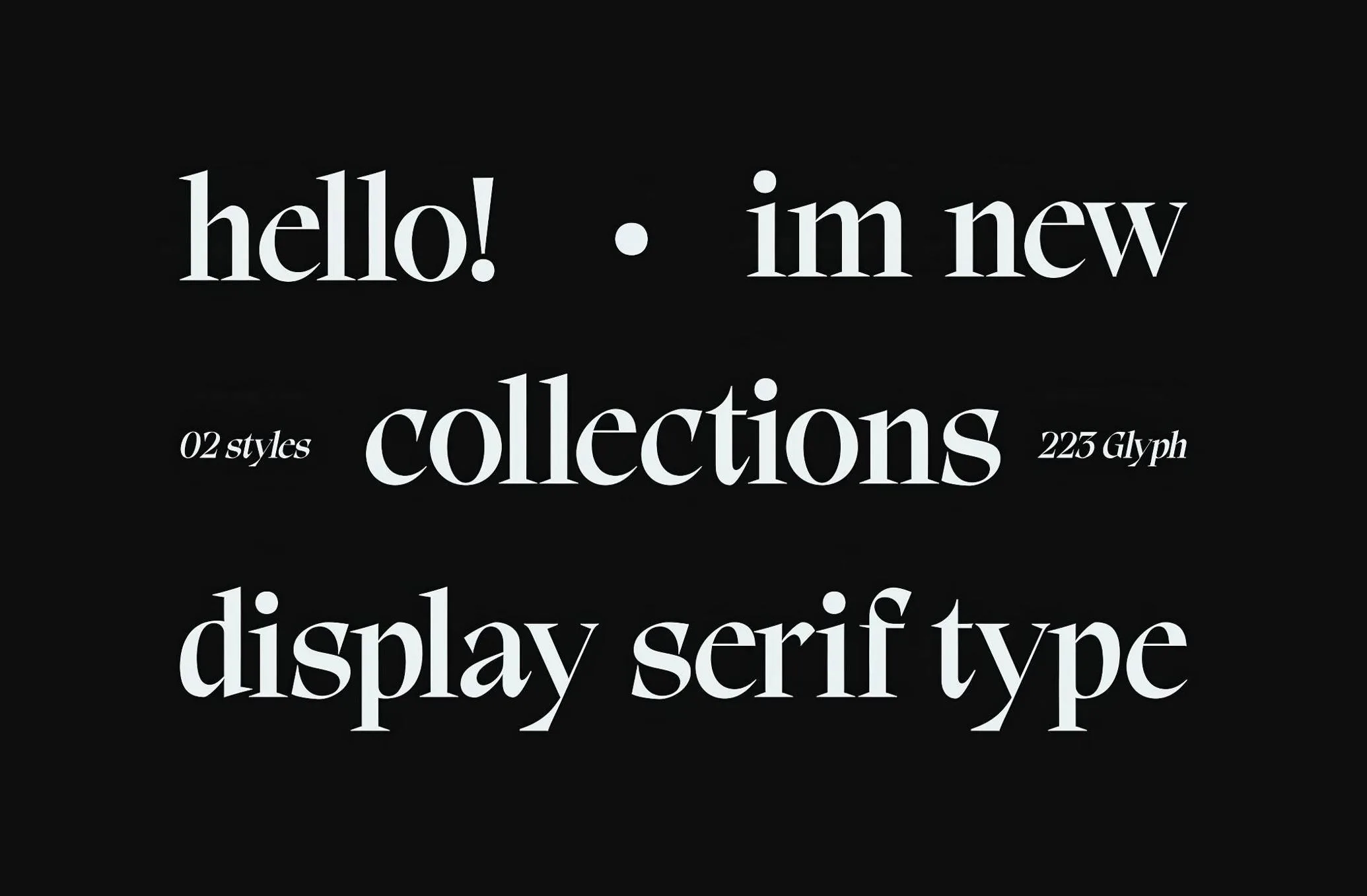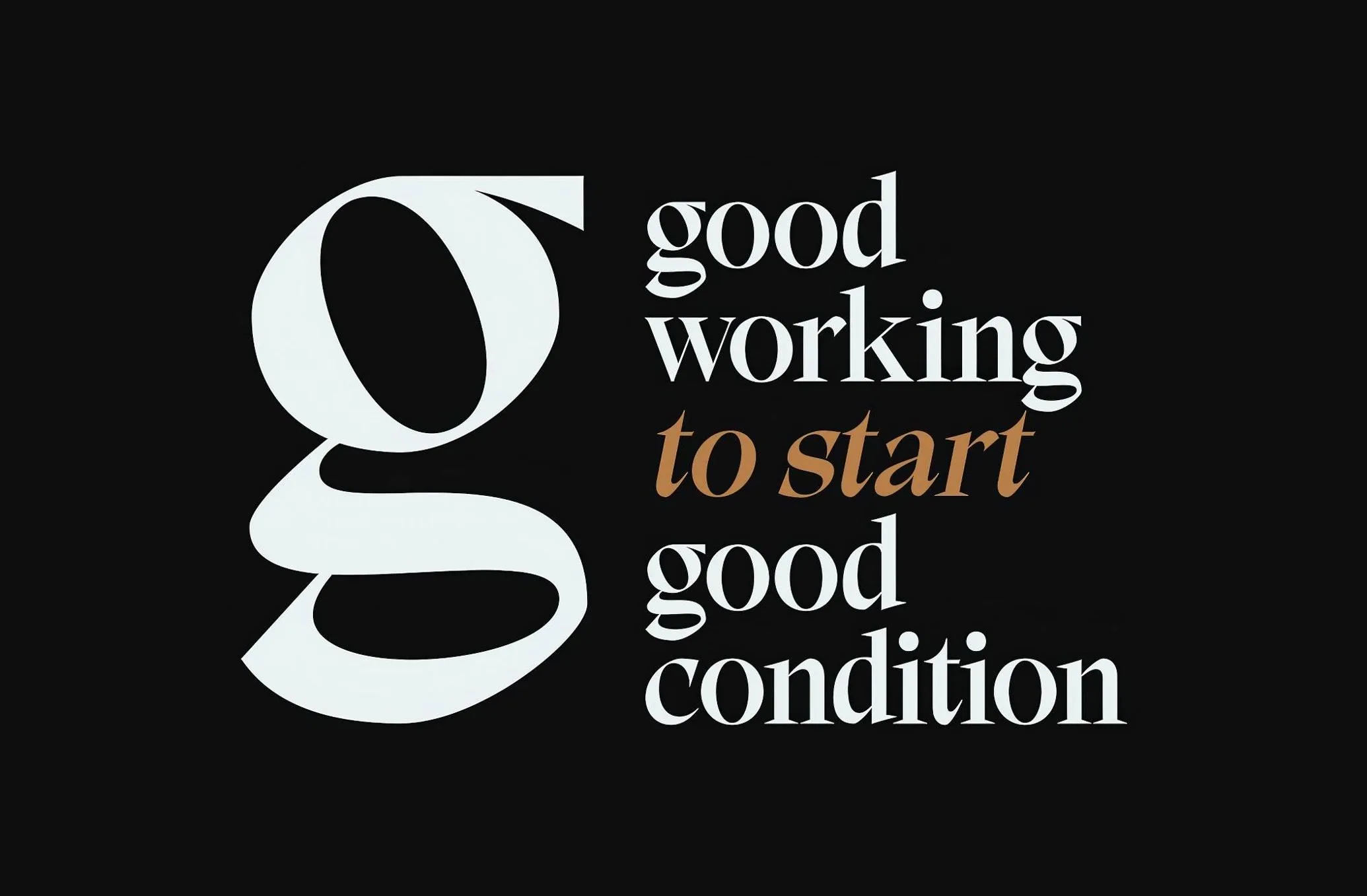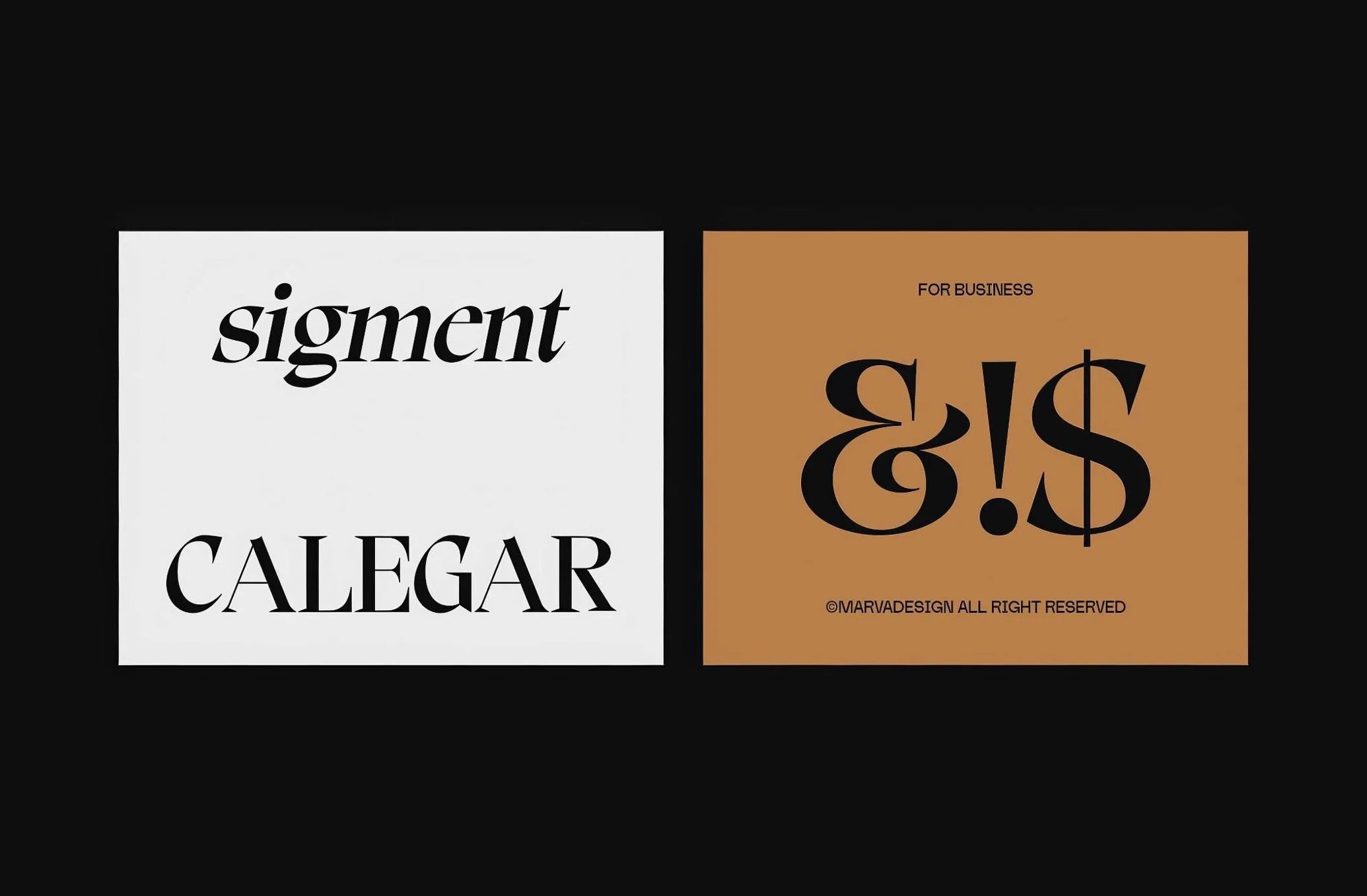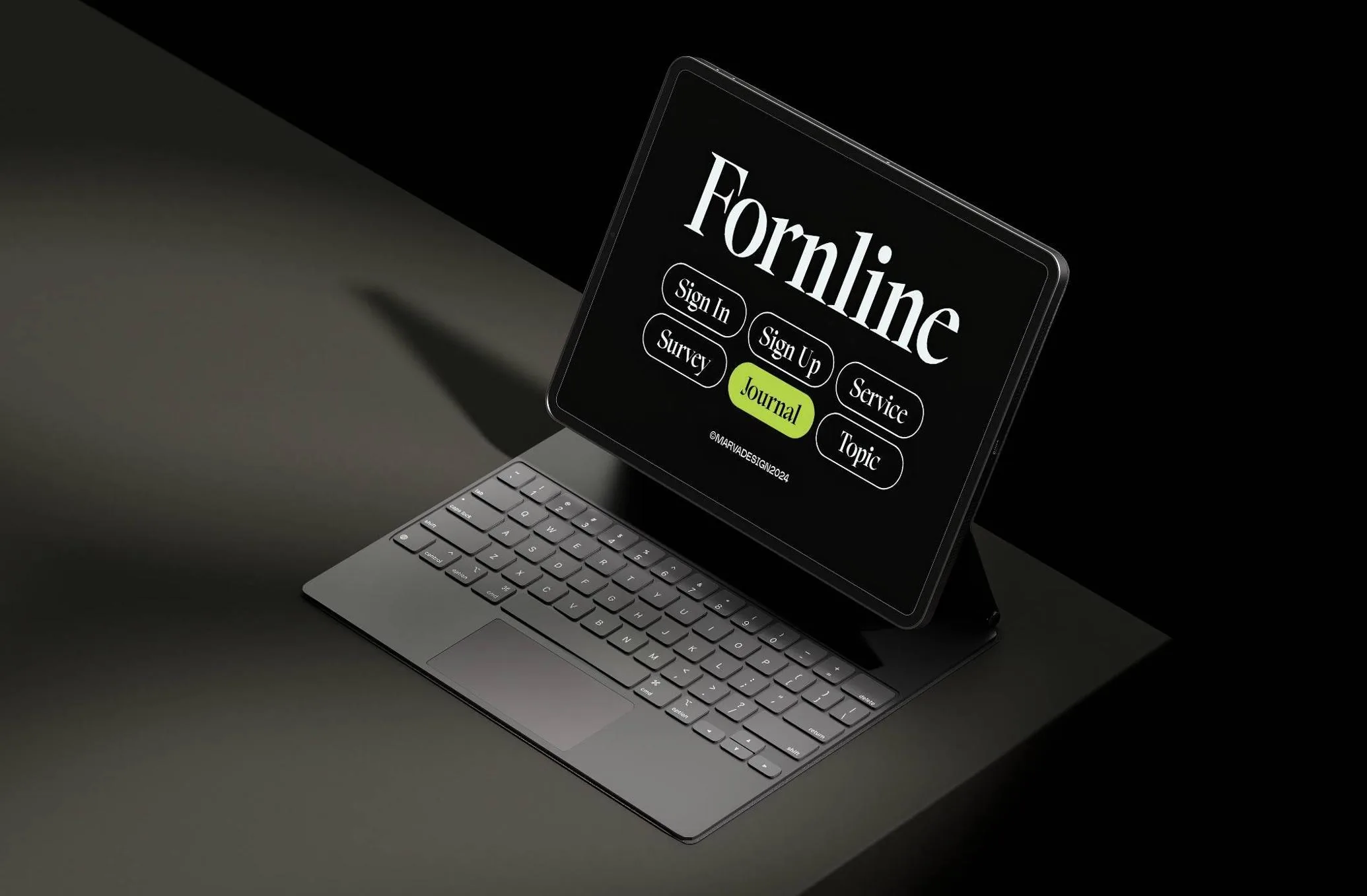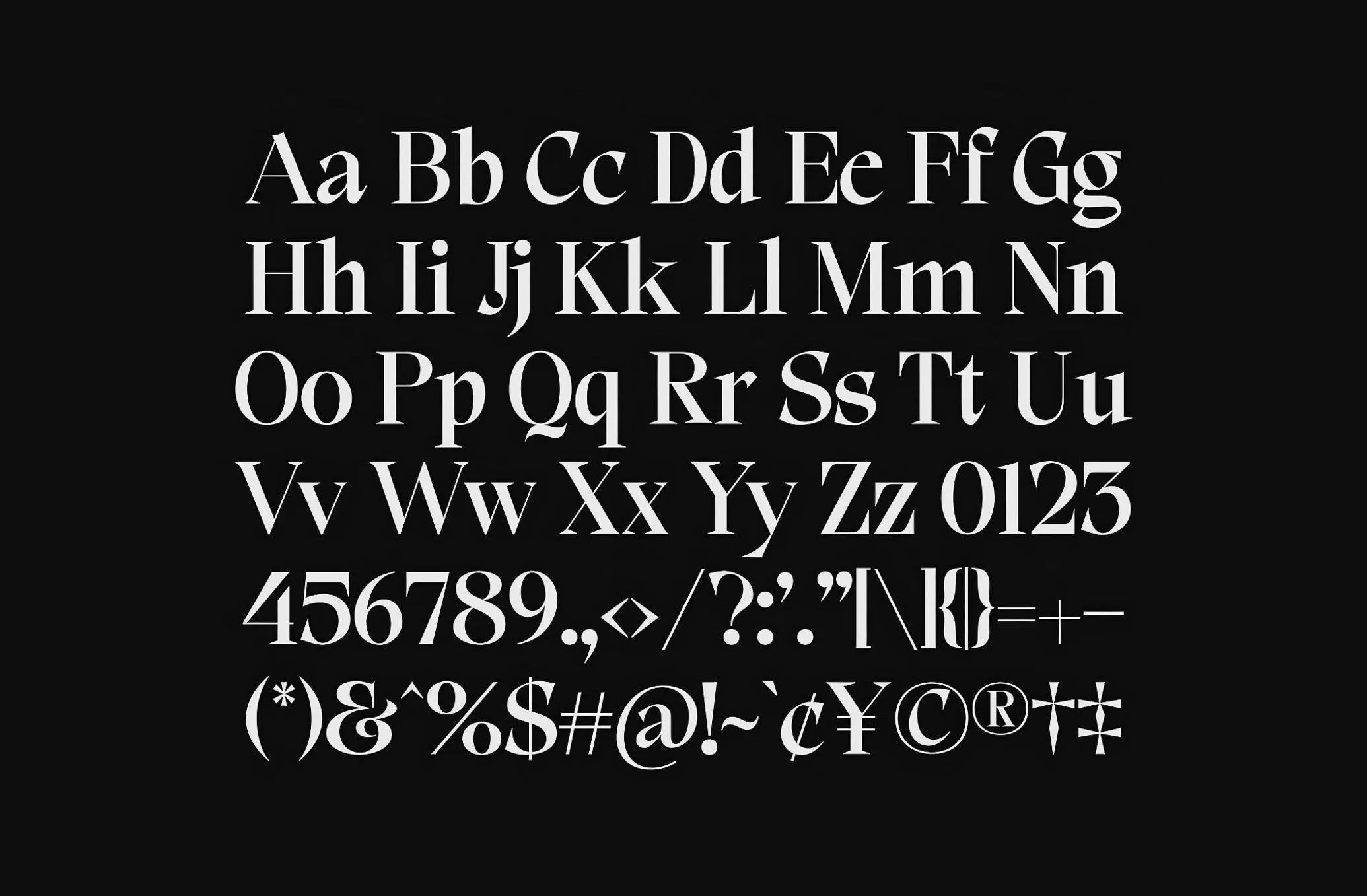
Calegar Display Serif Font – Make a Bold, Elegant Statement
If you’re looking for a font that instantly captures attention with class and confidence, meet the Calegar Display Serif Font. It’s not just a typeface—it’s a visual signature. With bold curves, high contrast, and clean elegance, this serif font is made to dominate headlines, elevate brand identities, and bring modern drama to any design.
From the very first glance, Calegar makes a strong impression. The letterforms are sharp yet graceful, with just the right amount of flair to feel luxurious—without ever going over the top. Think of it as the perfect mix between classic fashion magazine titles and sleek modern branding. Whether you’re designing a bold editorial layout, luxury logo, or a stylish social media post, this font does all the heavy lifting with style.
Designed for High-Impact Visuals
Calegar thrives in large sizes—it was made for titles, packaging, posters, and branding that need to speak loudly and clearly. The high contrast between thick and thin strokes adds a dramatic feel, while the sculpted serifs give each character a refined edge. It’s not just about beauty; it’s about authority, presence, and taste.
This display serif font includes:
• Uppercase & lowercase letters
• Punctuation & numbers
• Multilingual support for extended character sets
Where to Use Calegar
This font is ideal for:
• Fashion branding and logos
• Editorial magazine covers and layouts
• Luxury product packaging
• Social media graphics and ad campaigns
• High-end invitations or promotional print
If your project needs a font that screams premium, Calegar Display Serif is the one to pick. It’s strong without being harsh, stylish without being trendy, and elegant without losing its modern touch.